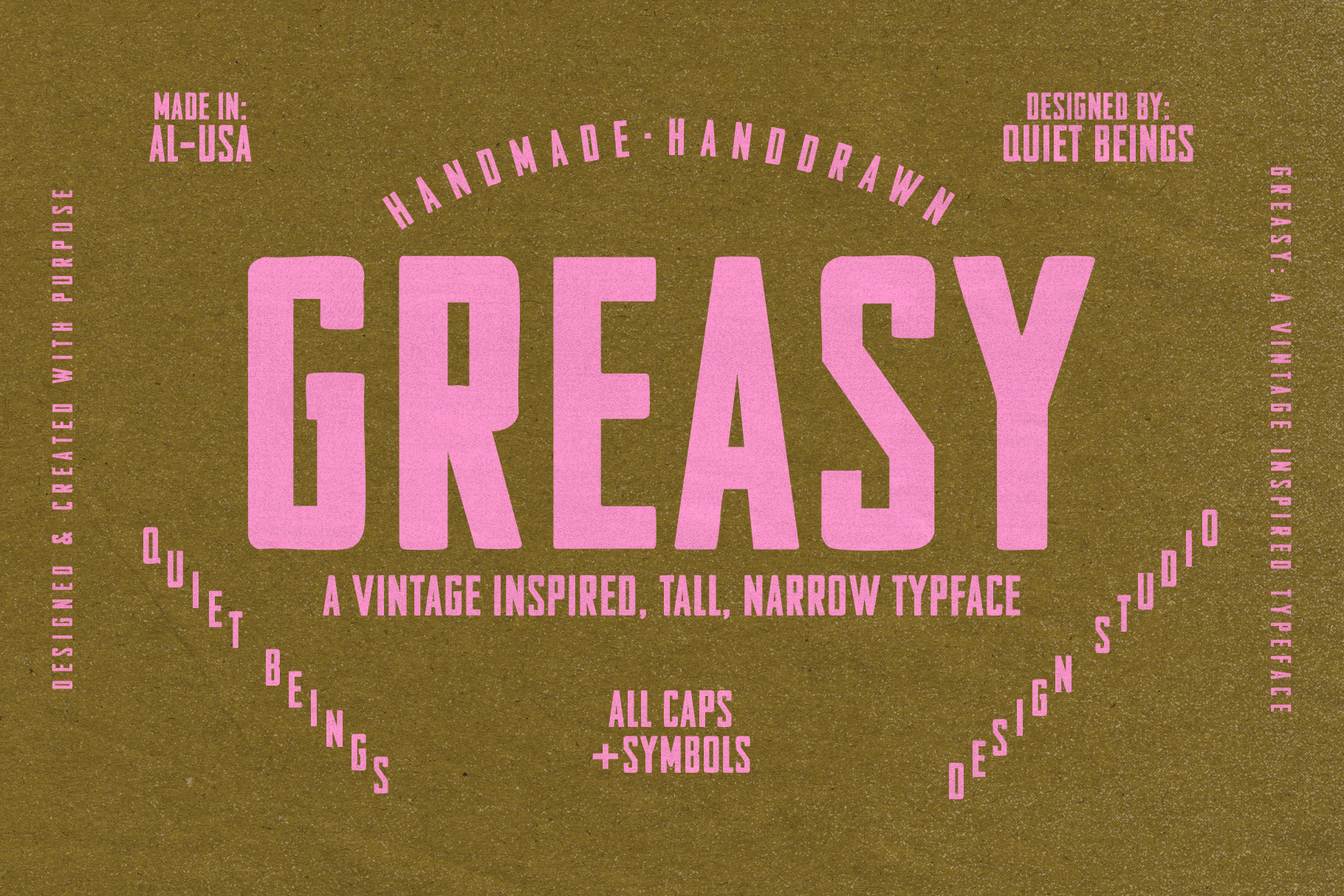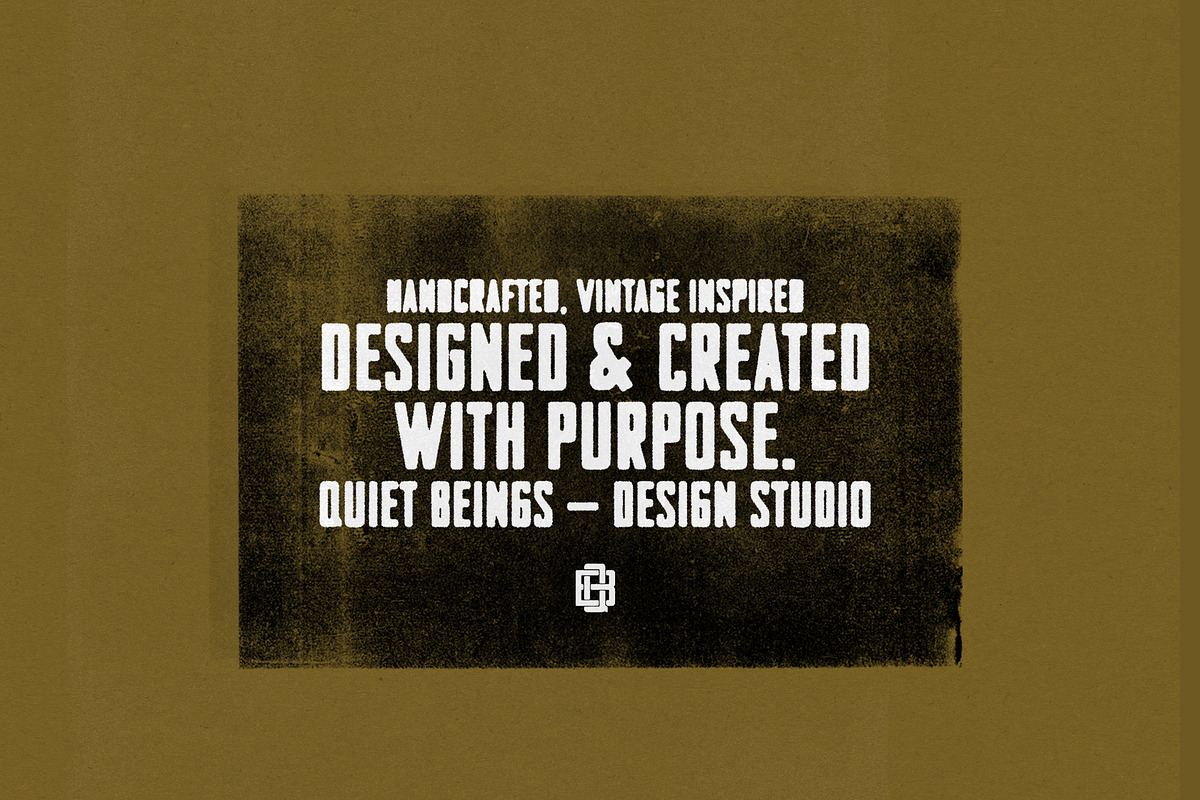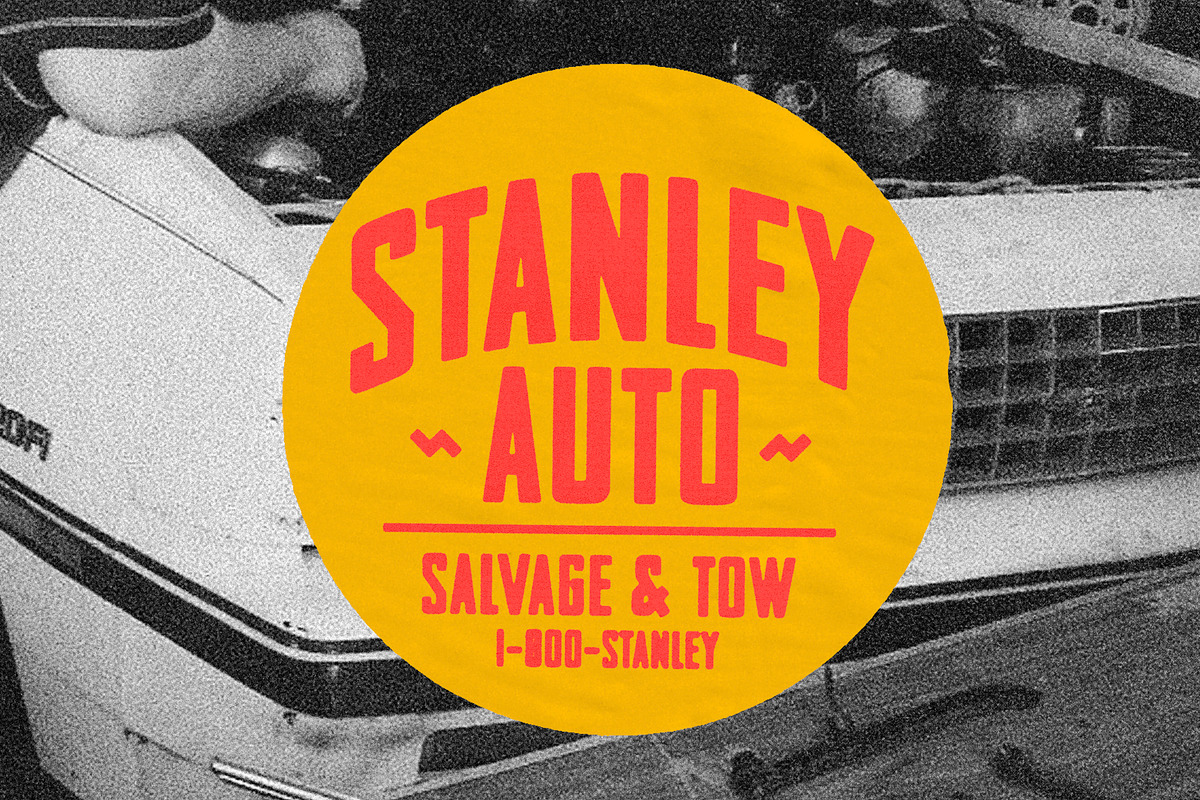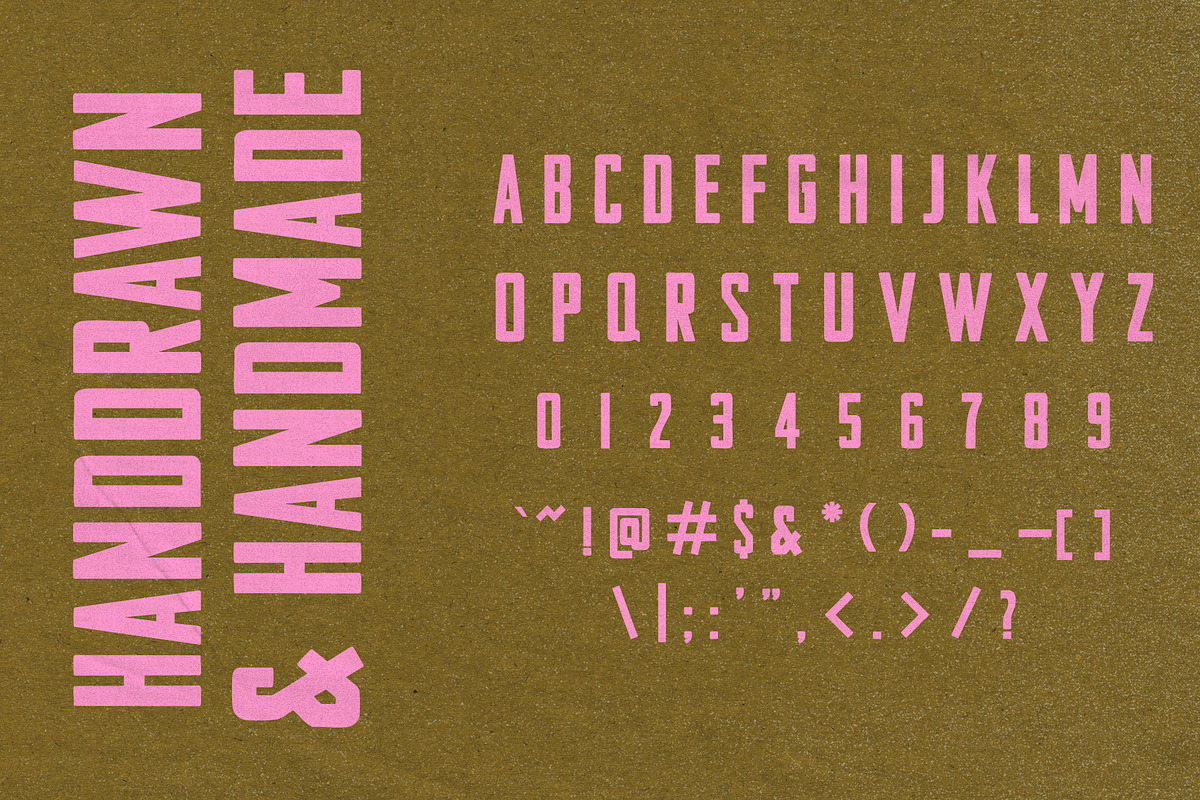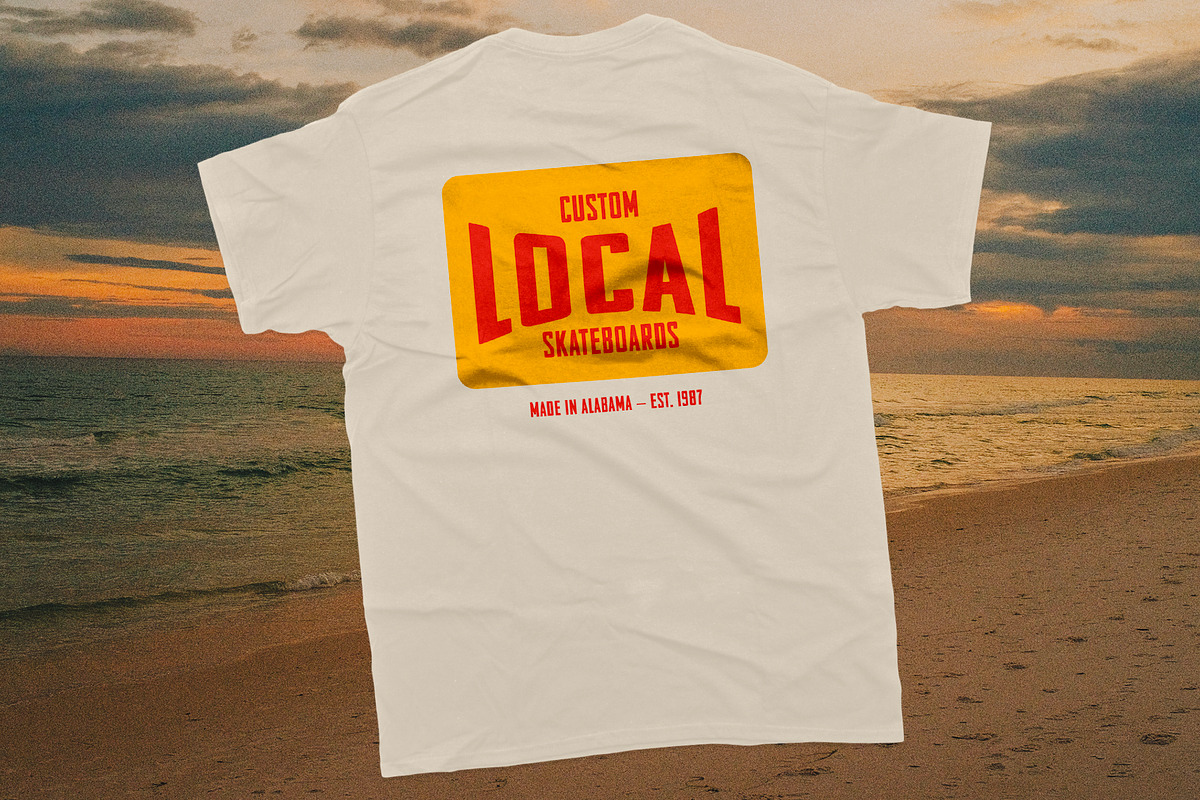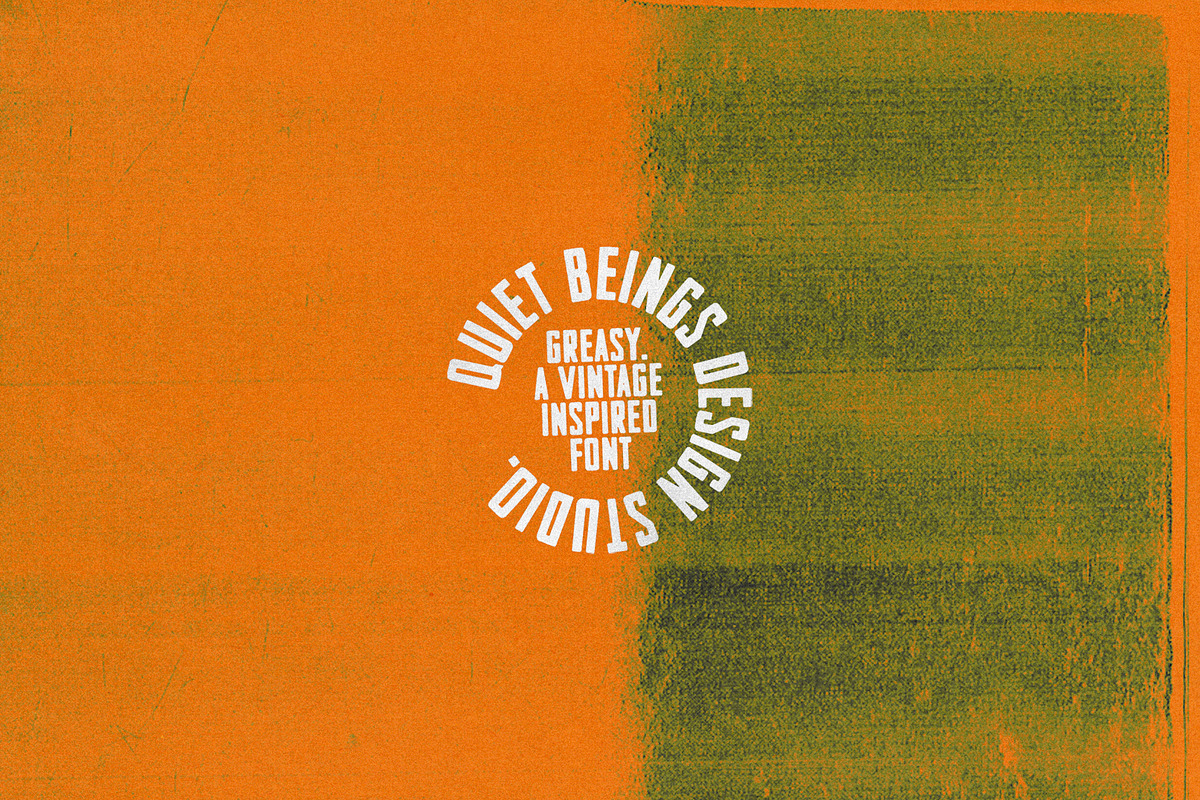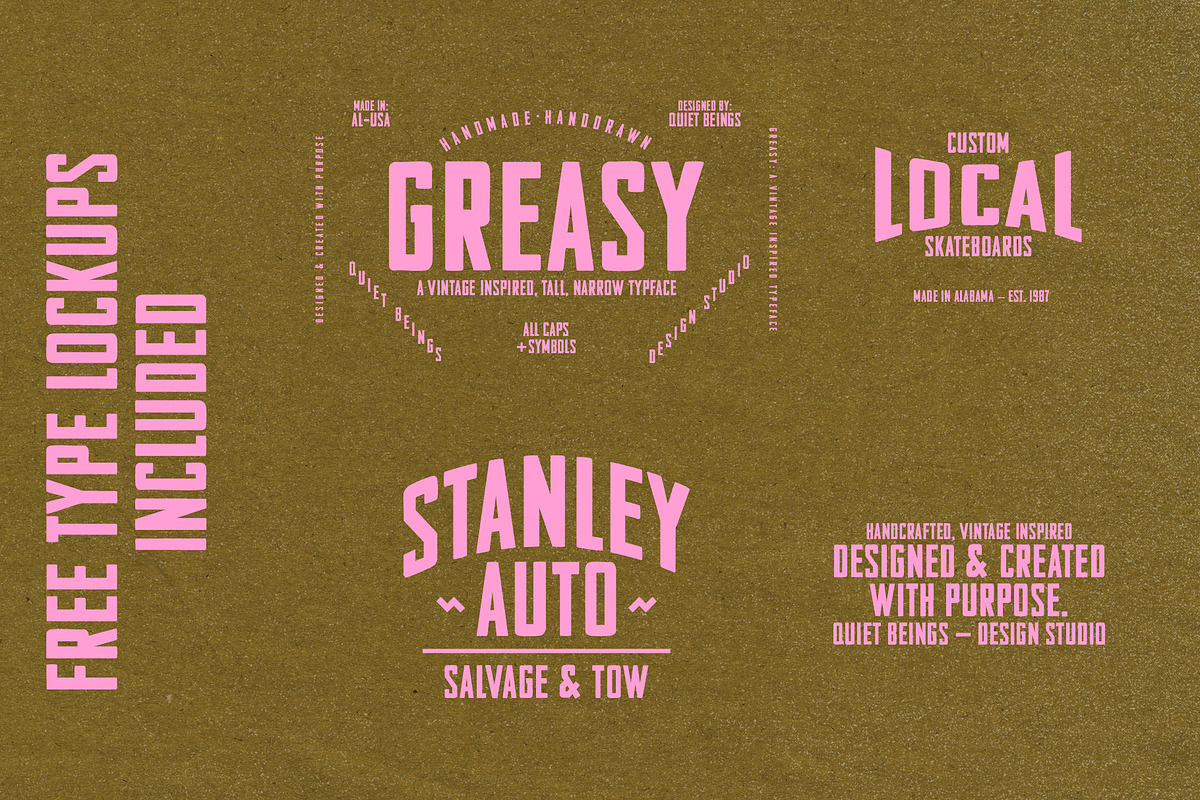
Greasy - Handdrawn Vintage Typeface
Greasy is a tall & narrow typeface inspired by vintage signs and fonts. It is handdrawn. You'll find some small imperfections that make this typeface feel like it came from decades ago. It's such a versatile typeface. It's perfect for apparel design, packaging, even visual identities.